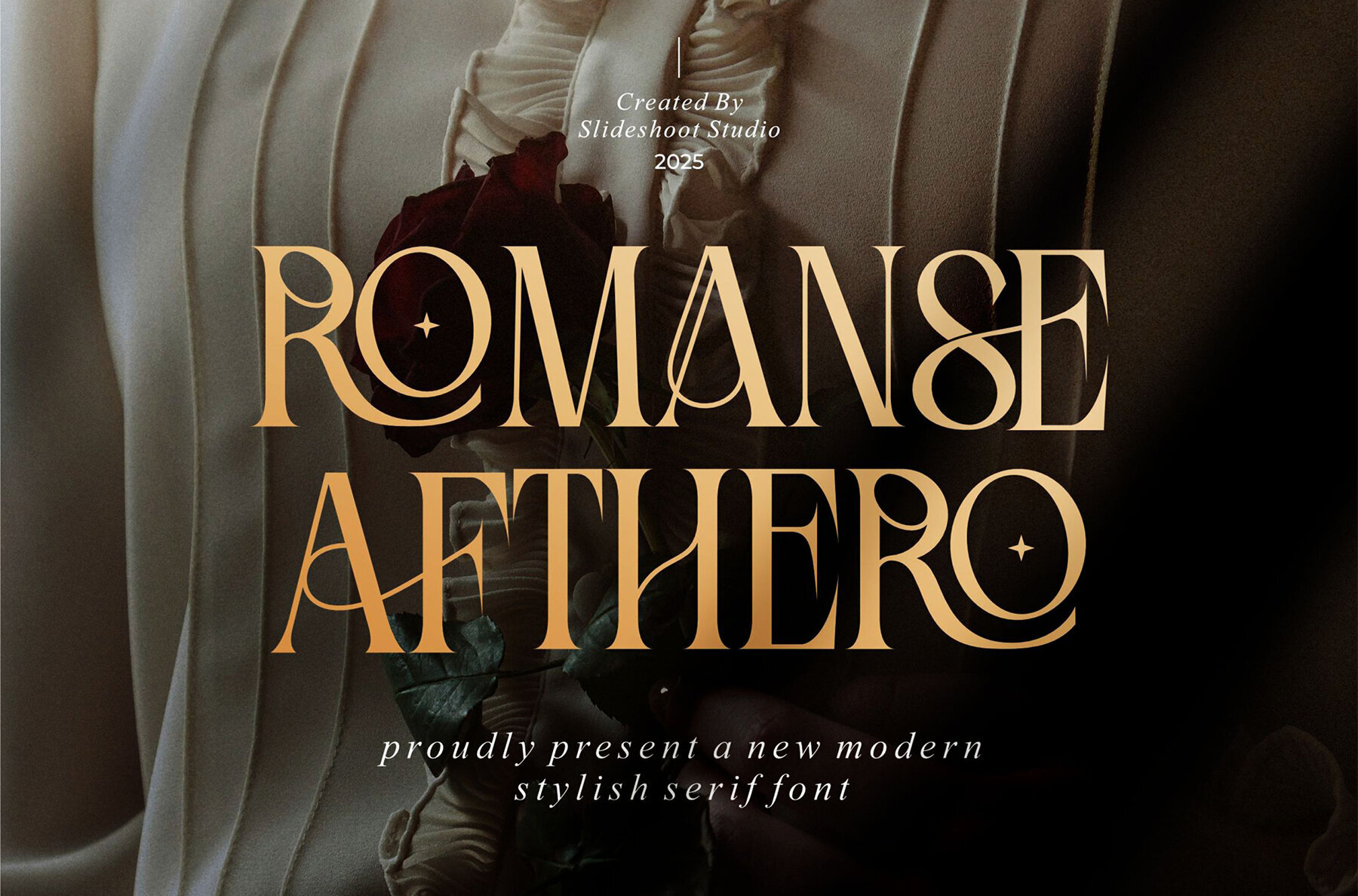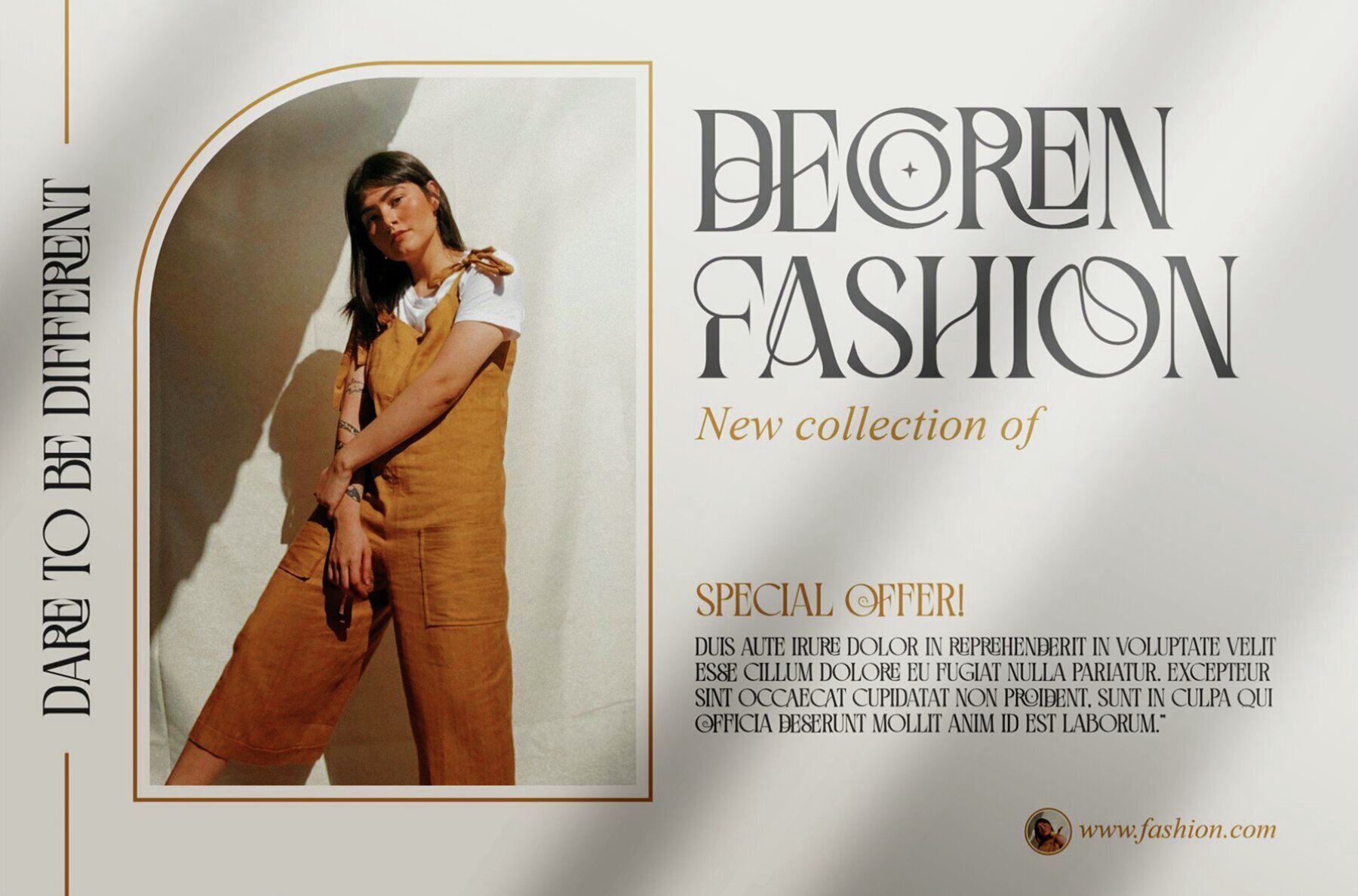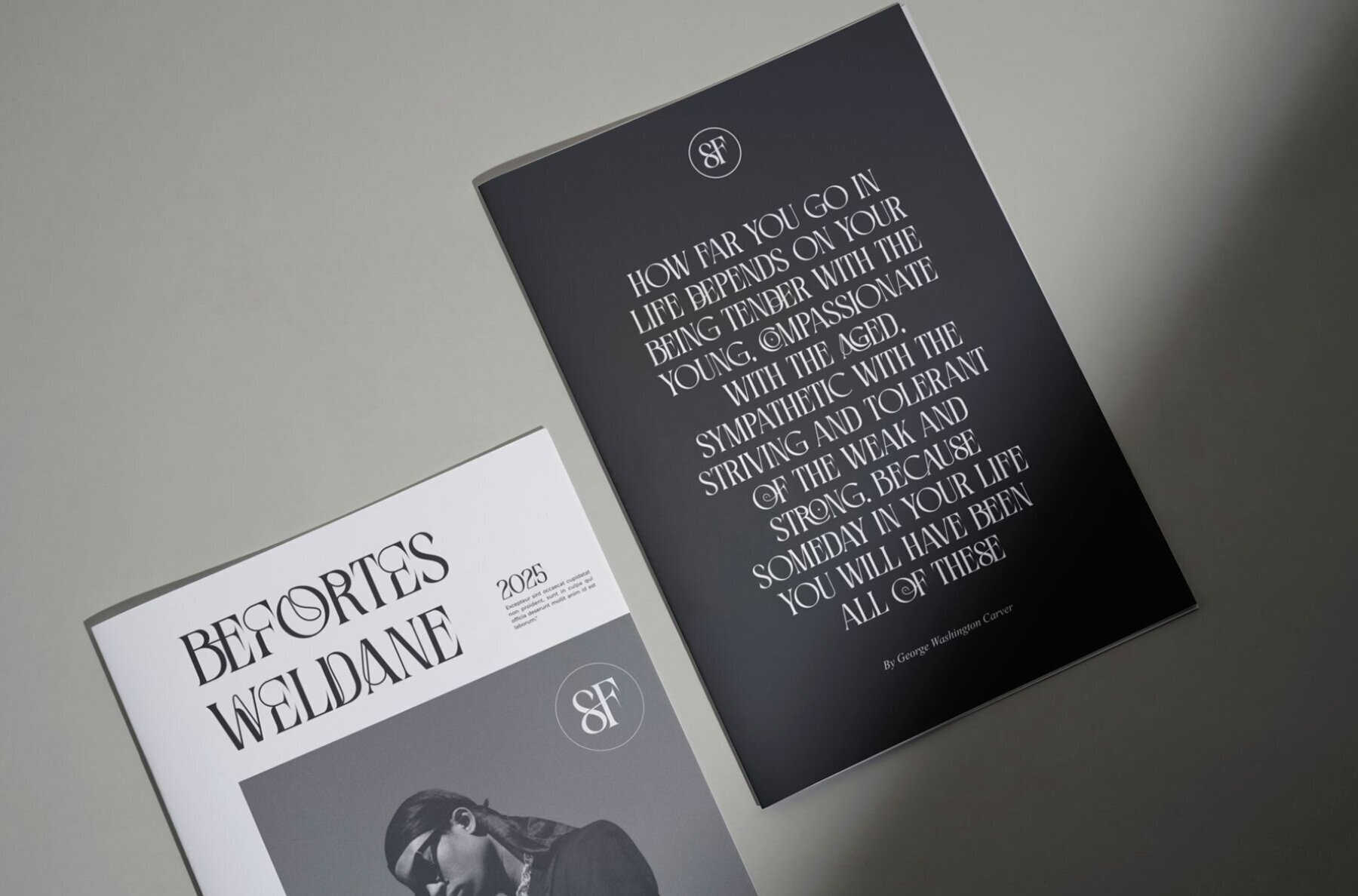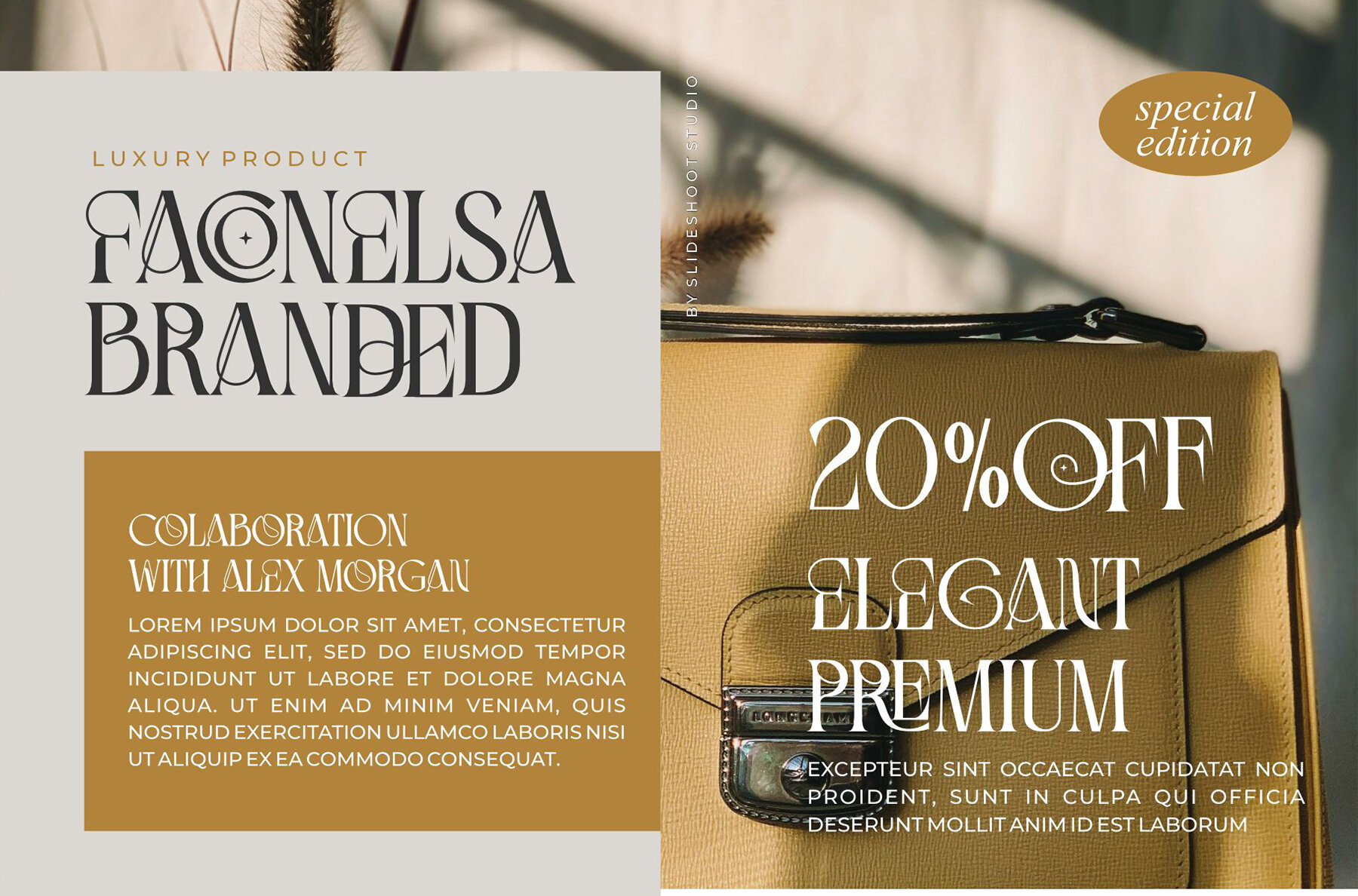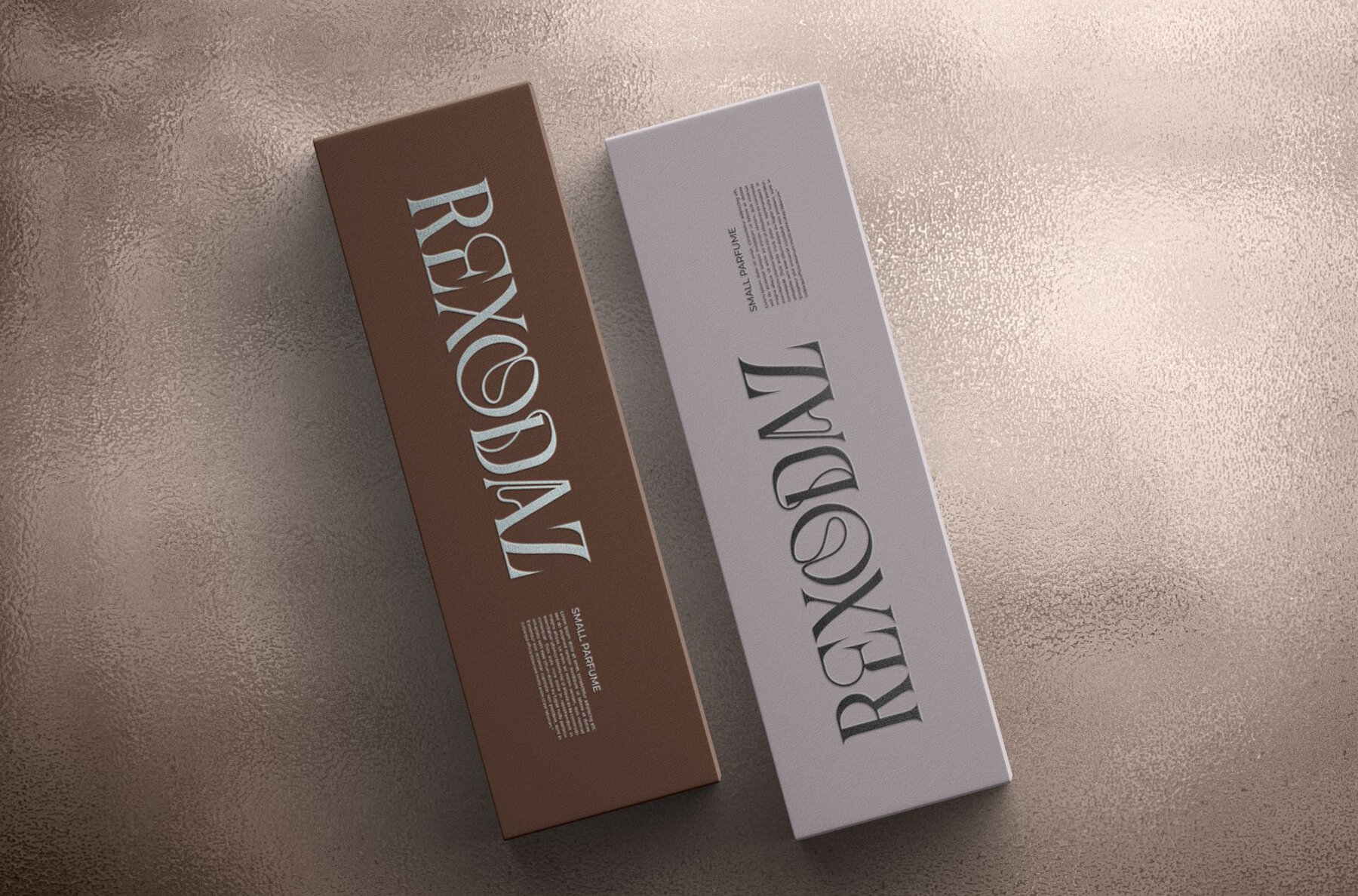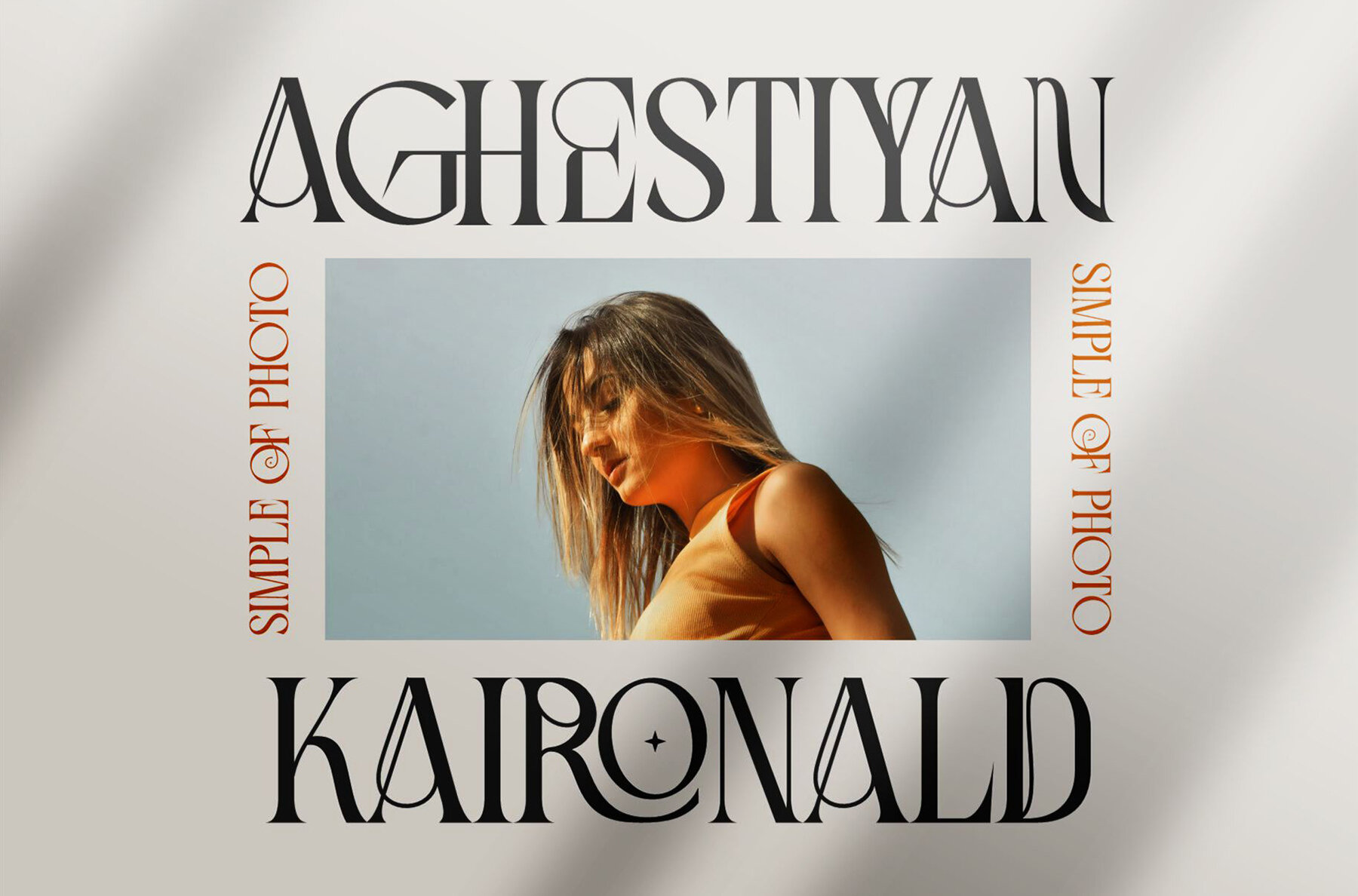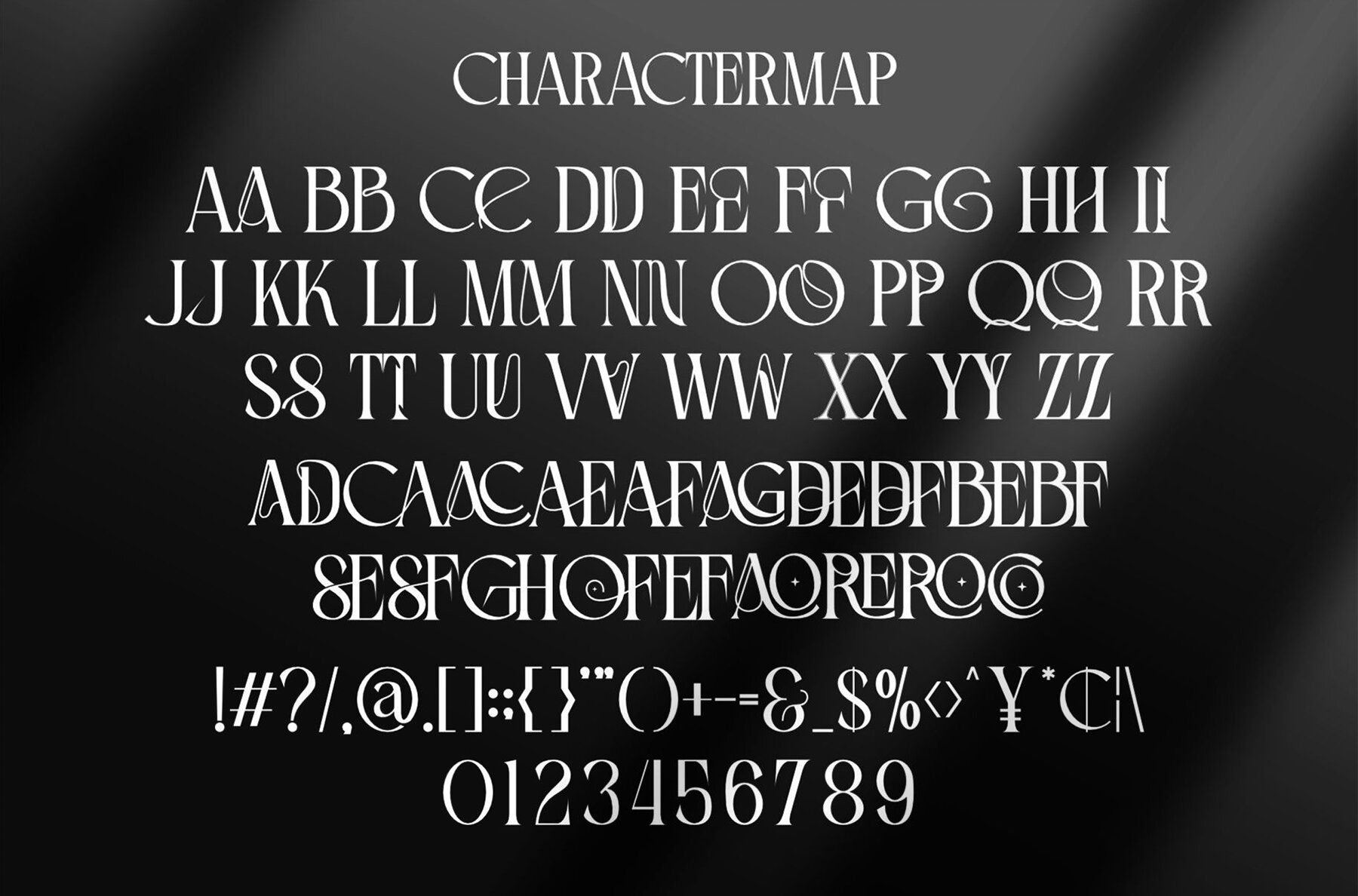
Romanse Afthero Font
Romanse Afthero
Unlock a world of design potential with Romanse Afthero, a modern serif font that stands out for its trendy, bouncy charm and unique wood-themed character. This playful display font effortlessly enhances invitation card designs, company logos, movie titles, business cards, book titles, brand identities, and much more.Romanse Afthero: A Modern Serif with Personality